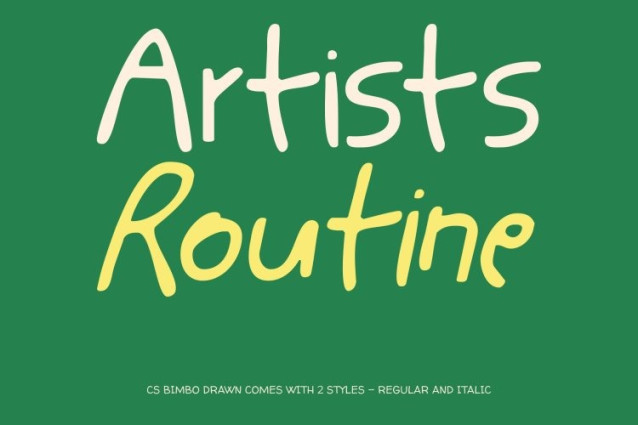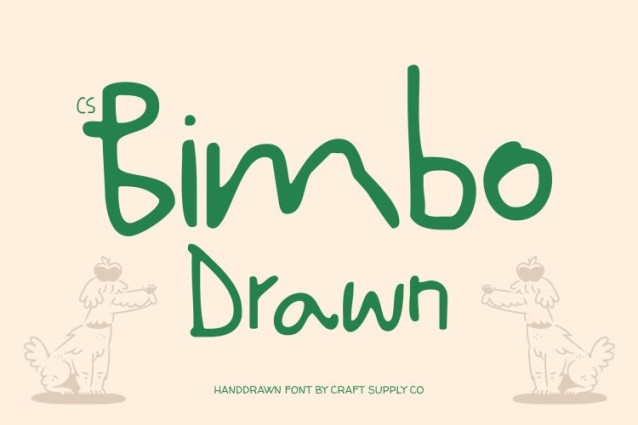
CS Bimbo Drawn Font
CS Bimbo Drawn Font This is a gritty yet stylish display font that embraces imperfection as its defining feature. Designed to look irregular and freely scribbled, it transforms chaos into character, bringing a sense of spontaneity and creativity to every design.
Raw, Handcrafted Energy
Each letter carries the texture of hand-drawn strokes and uneven lines, giving the font a natural, unpolished charm. Its raw aesthetic evokes authenticity and fun, making it perfect for projects that celebrate artistic freedom and creative expression without boundaries.
Quirky and Expressive Style
The font’s playful irregularity makes it ideal for designs that aim to feel energetic, youthful, and original. Its imperfect forms add warmth and personality, ensuring that text stands out and captures attention in both digital and print contexts.
Perfect for Fun and Creative Projects
Whether used for children’s writing designs, quirky branding, or playful illustrations, this font delivers a carefree and expressive vibe. It’s the perfect font for designers who want to bring spontaneity, imagination, and artistic flair into every project.